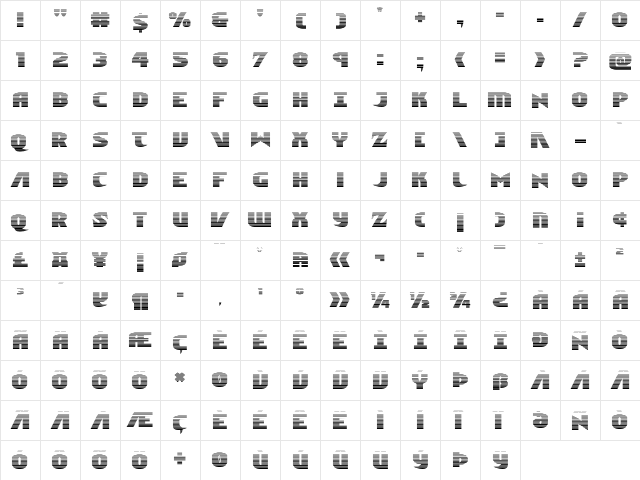
Ninja Garden Gradient Regular
Design Context for Ninja Garden Gradient Typeface
Ninja Garden Gradient is a composed and adaptable typeface that performs quietly and consistently across a wide range of design contexts.